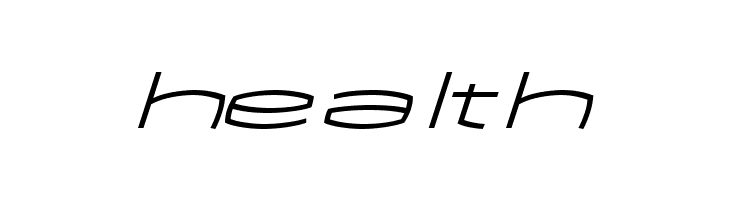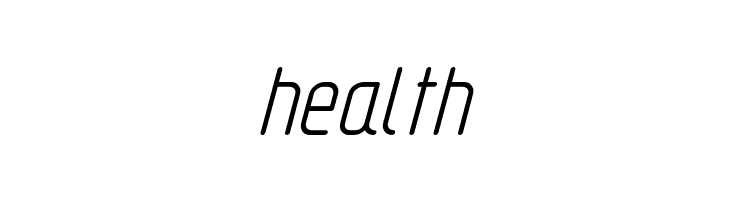
A sleek, modern oblique font with consistent stroke width and dynamic style.
A modern, condensed sans-serif font with a sleek and efficient design.
A sleek, modern, and slightly italic font with a minimalist design.
A sleek, modern, and condensed thin font with uniform stroke width.
A modern, light sans-serif font with a clean and minimalistic design.
A sleek, thin, and slightly italicized modern font with low contrast.
A sleek, modern oblique font with thin strokes and dynamic slant.
A modern, sleek, and slightly italicized font with a condensed style.